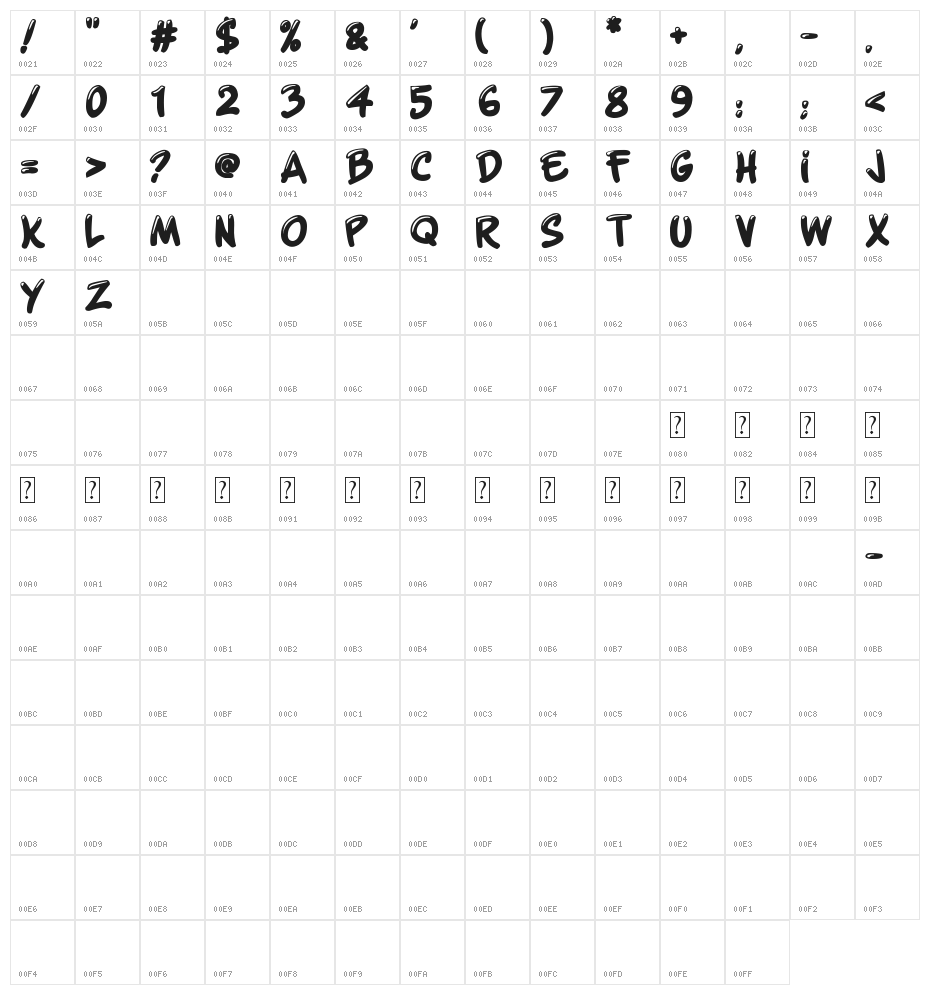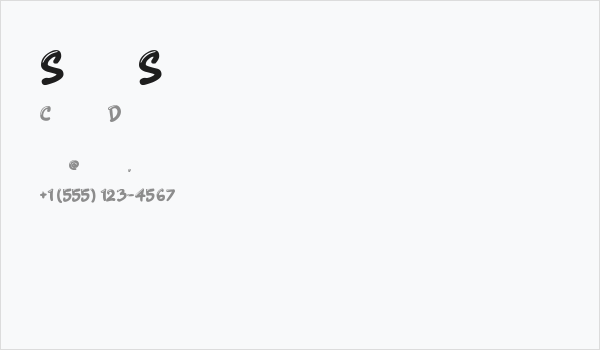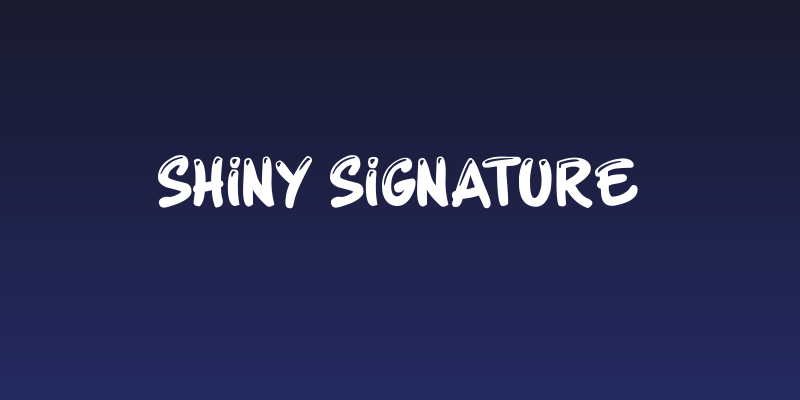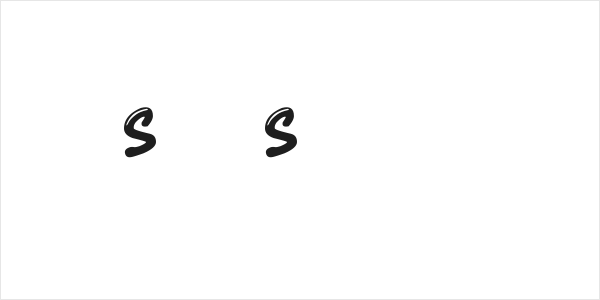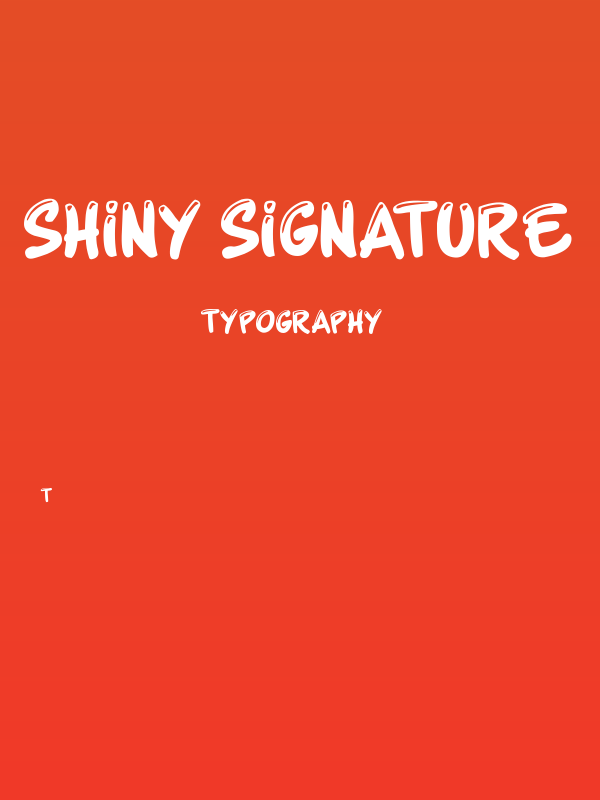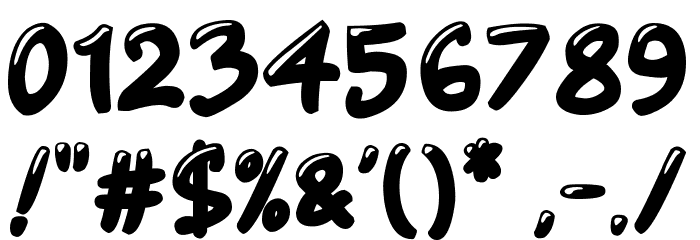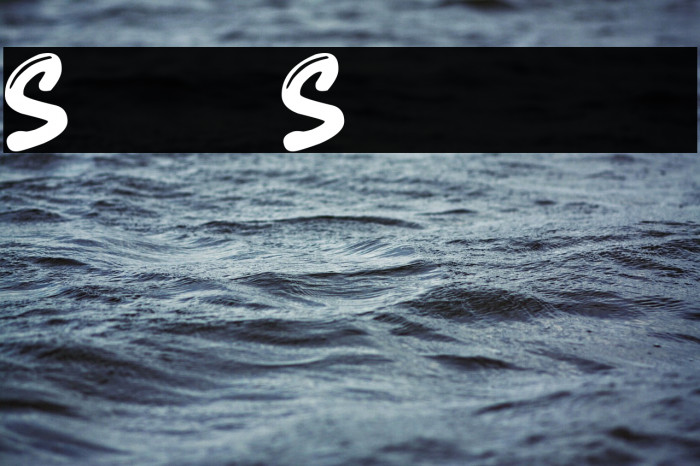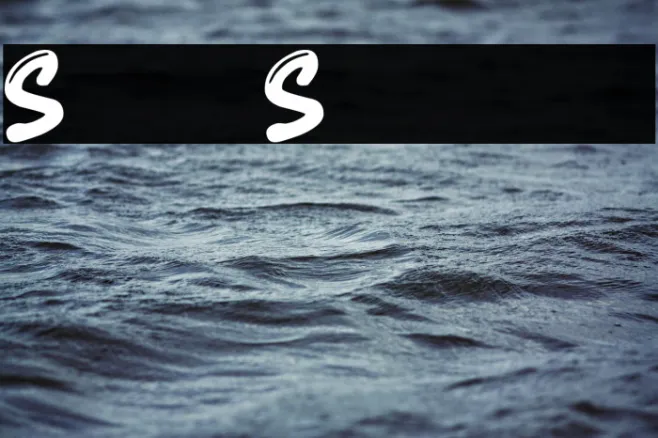
Shiny Signature Font
Shiny Signature Description
This font features a bold and playful style with a handwritten appearance. The characters are rounded and slightly irregular, giving a casual and friendly feel. The strokes are thick and consistent, providing a strong visual impact. The uppercase letters are prominent and well-defined, while the lowercase letters maintain a cohesive look. Numbers and special characters follow the same playful design, making them easily recognizable. The overall style is energetic and lively, suitable for projects that require a fun and approachable aesthetic.
| Proposed Projects | Ideal for children's books, playful branding, greeting cards, and informal invitations. |